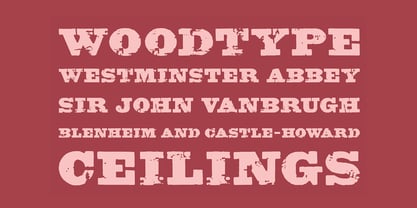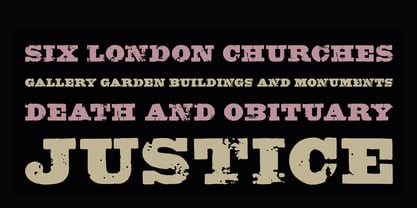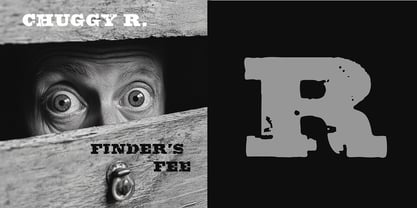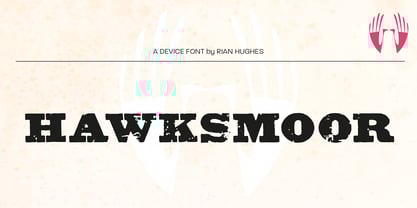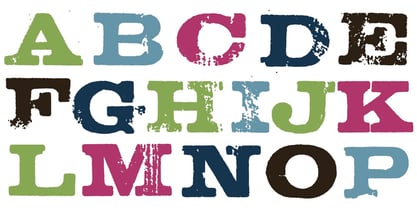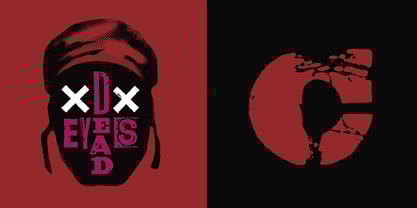
Hawksmoor
by Device
The Hawksmoor Font Family was designed by Rian Hughes and published by Device. Hawksmoor contains 1 styles.
Hawksmoor is a digital font that preserves the worn and inky idiosyncrasies of old woodblock type.
Designers: Rian Hughes
Publisher: Device